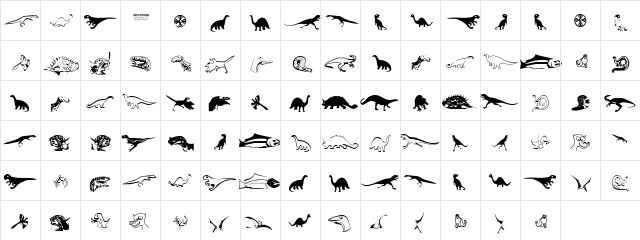
Asian Age Regular
Design Context for Asian Age Typeface
Asian Age is a composed and adaptable typeface that performs quietly and consistently across a wide range of design contexts.